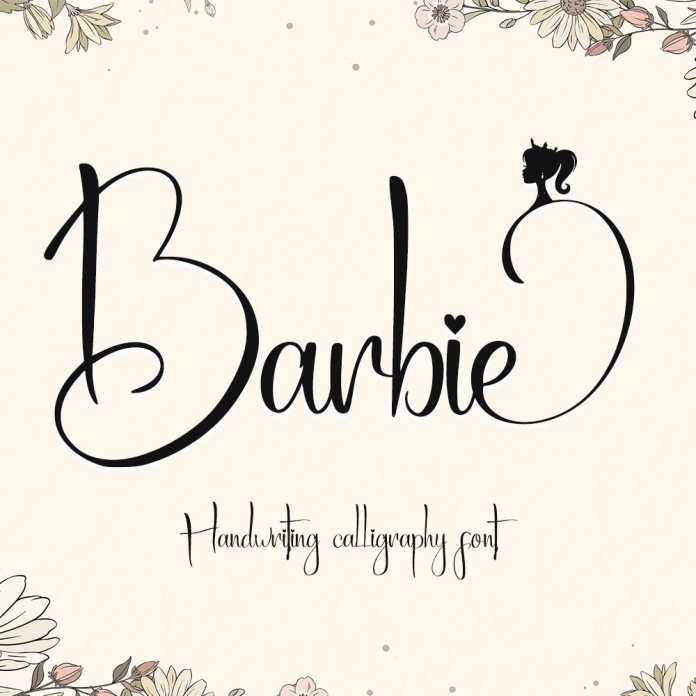
The Barbie Font Script is a whimsical and elegant script font that features delicate loops and swirls, perfect for adding a touch of femininity and sophistication to any project. Its unique design makes it ideal for invitations, branding, and other creative projects that require a stylish and eye-catching font.